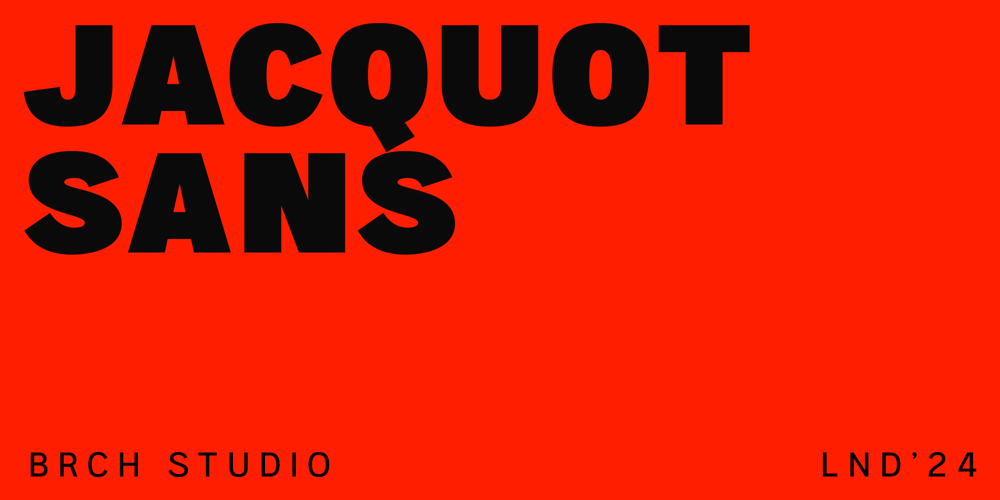
Jacquot Sans Font Family was designed by published by BRCH Studio. Jacquot Sans contains 18 styles and family package options. Jacquot is a contemporary, geometric sans serif with humanist inspirations. Jacquot Sans offers 18 weights, upright and slanted ranging from Extralight through Black giving it a lot of flexibility to be used as body or display. Its slightly condensed shape creates impactful titles as well as a balanced body.With over 780 glyphs Jacquot Sans supports up to 118 extended latin languages.